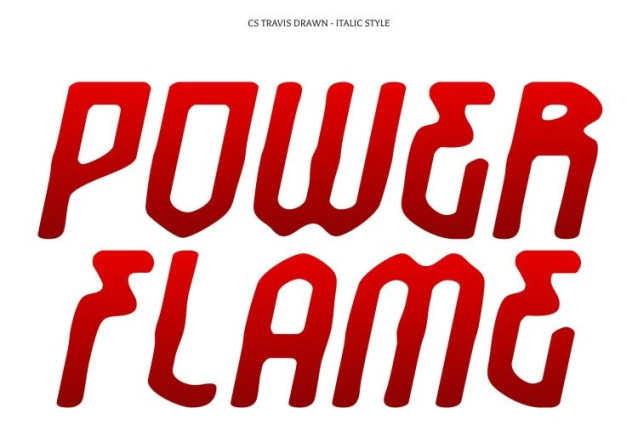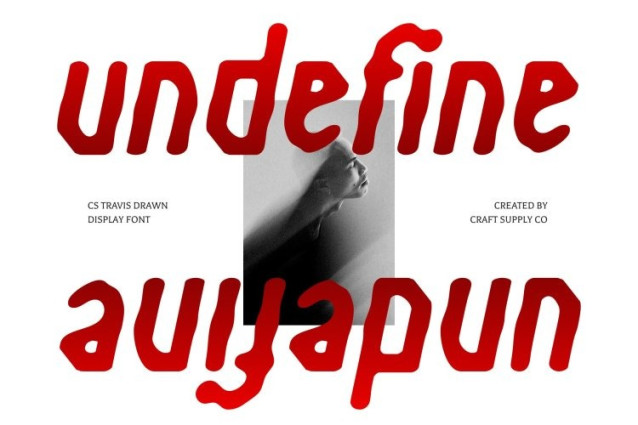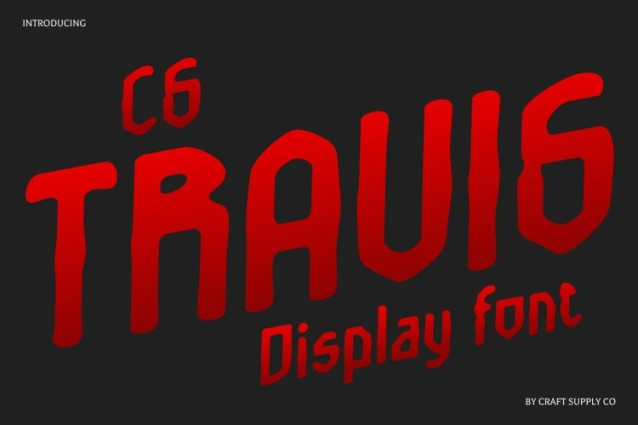
CS Travis Drawn Font
CS Travis Drawn Font This is a decorative display font that blends gothic-like elements with bold, playful shapes to create a funky and highly characterful appearance. Its dramatic forms and ornamental details instantly draw attention, making every word feel expressive and full of attitude. The gothic influence adds depth and edge, while the decorative styling keeps the font visually exciting and unconventional.
Hand-Drawn Texture for Artistic Expression
The drawn effect introduces a handmade texture that brings warmth and individuality to the font. Subtle imperfections and organic strokes give each letter a lively, artistic quality, transforming the typography into something that feels personal and expressive rather than rigid or mechanical.
Bold Personality for Creative Impact
Designed for strong visual presence, works best in display settings where personality matters. Its decorative gothic style makes it ideal for posters, headlines, branding, album artwork, and creative projects that aim to stand out. The font delivers impact without sacrificing creativity, ensuring designs feel bold, memorable, and full of energy.
Perfect for Funky, Expressive, and Unique Designs
This font perfect for designers looking to combine gothic flair with artistic freedom. Whether used in experimental branding, expressive posters, or standout headlines, this font offers a distinctive mix of decoration, attitude, and handcrafted charm. It brings character, creativity, and visual excitement to any project that dares to be different.